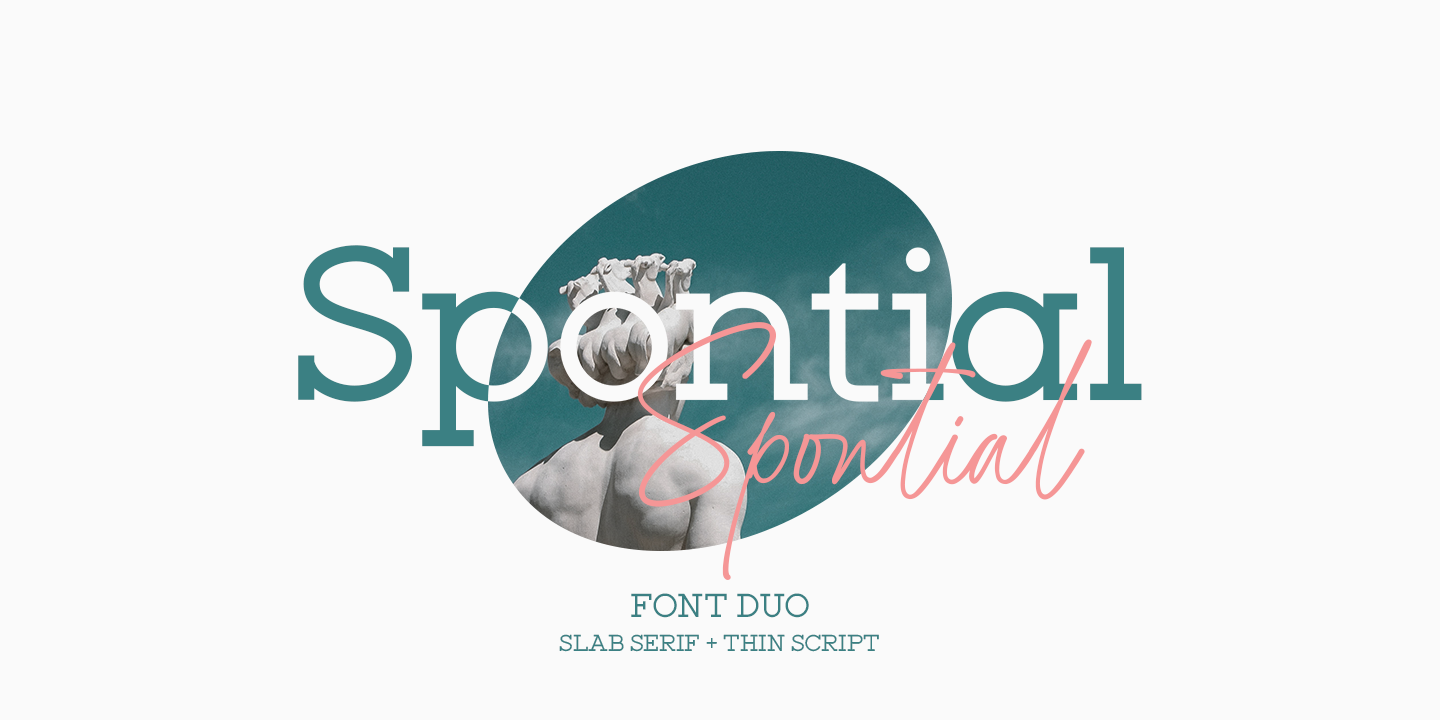
Spontial Font is perfect for creative workshop branding, spontaneous event promotions, improvisational art project materials, freestyle music festival advertising, dynamic social media campaigns, energetic youth organization logos, expressive dance performance promotions, creative brainstorming session graphics, artistic expression workshops, and vibrant community event announcements. Its spontaneous character makes it ideal for projects requiring creative freedom and dynamic energy expression.
What makes Spontial Font exciting is its captivating embodiment of spontaneous creativity and artistic freedom with flowing letterforms and expressive characteristics that capture the essence of improvisational art and dynamic creative expression. The font features organic curves, variable stroke weights, and spontaneous character details that create energetic atmosphere and creative appeal. Its expressive personality brings vitality and artistic freedom to contemporary designs while maintaining the readability essential for event communications and creative presentations. The carefully crafted spontaneous elements ensure visual dynamism while preserving the distinctive character that embodies the essence of creative improvisation and artistic spontaneity excellence.
Spontial Font comes in multiple expressive variations including Light, Regular, Bold, Flow, and Dynamic styles. Each family member enhances the distinctive spontaneous character while offering different levels of creative expression and artistic energy. The complete font family includes alternate characters, creative symbols, and expressive decorative elements that provide comprehensive tools for creating dynamic creative design experiences and authentic artistic brand storytelling.
Whether you're developing creative brands, artistic events, or dynamic expression projects, Spontial Font Free Download provides the spontaneous energy needed to communicate with creative audiences and artistic communities who appreciate improvisational freedom and dynamic creative expression. The font's expressive appeal resonates with artists, performers, and creative innovators seeking authentic artistic credibility and spontaneous authenticity. Its comprehensive character set includes creative symbols and artistic marks, making it perfect for creating complete expressive brand systems and memorable spontaneous storytelling across diverse creative applications and dynamic design projects that celebrate artistic freedom and creative spontaneity excellence.